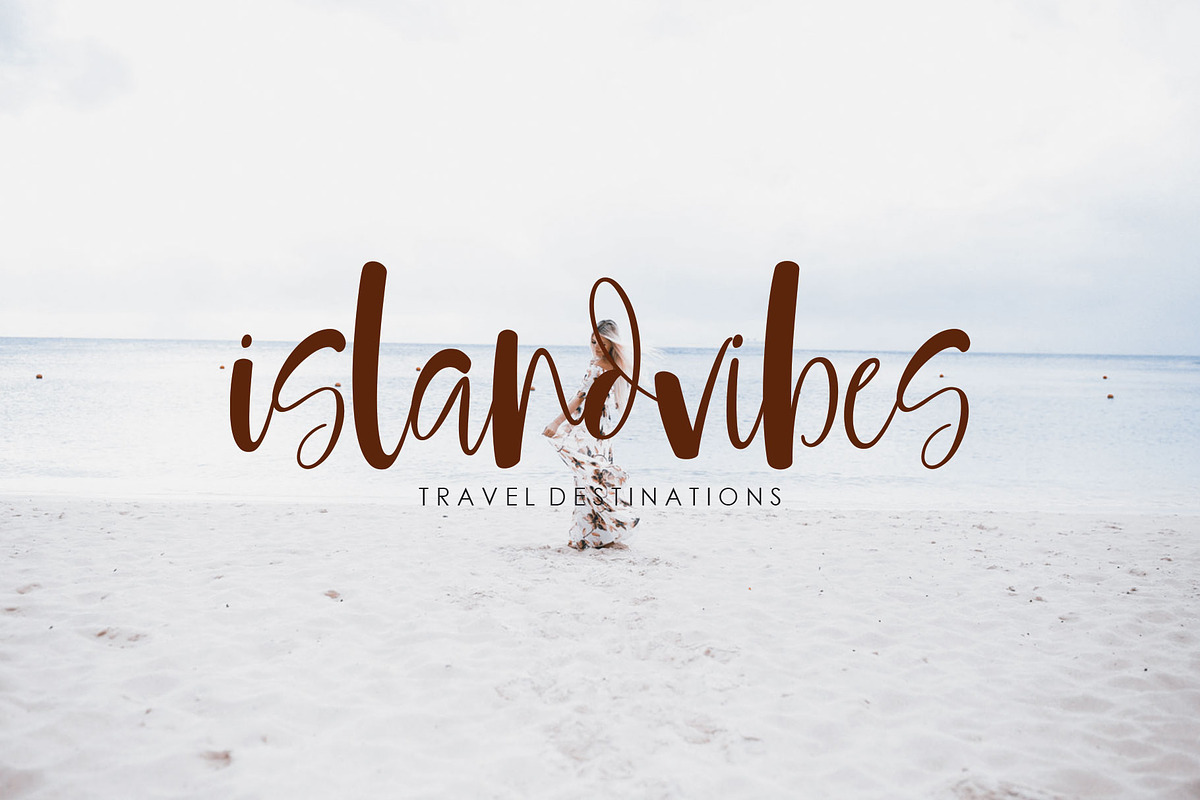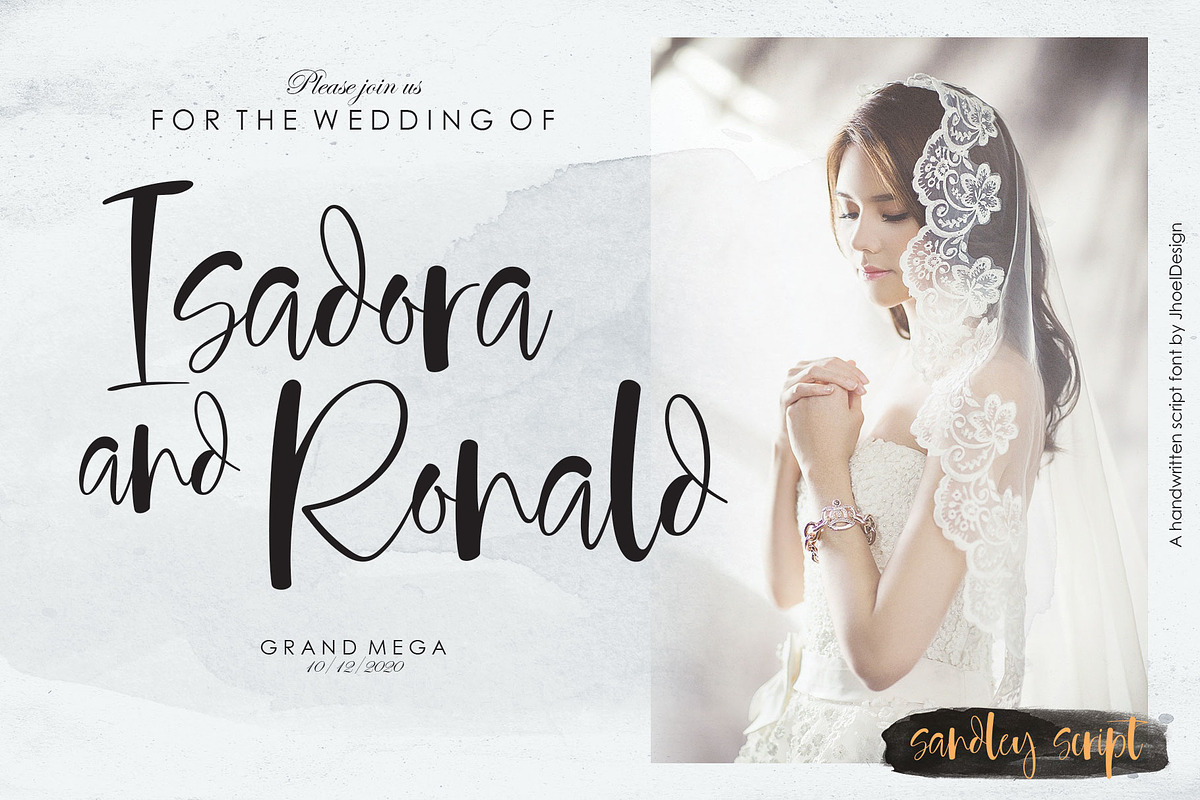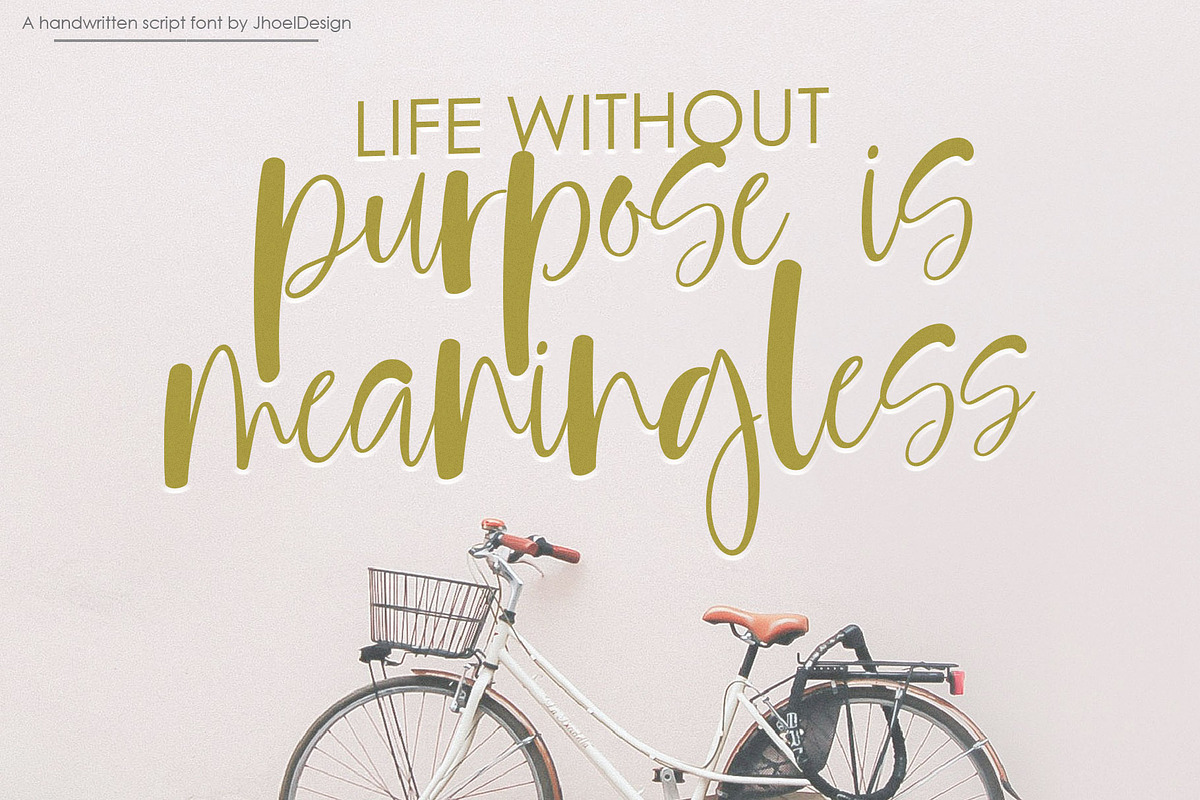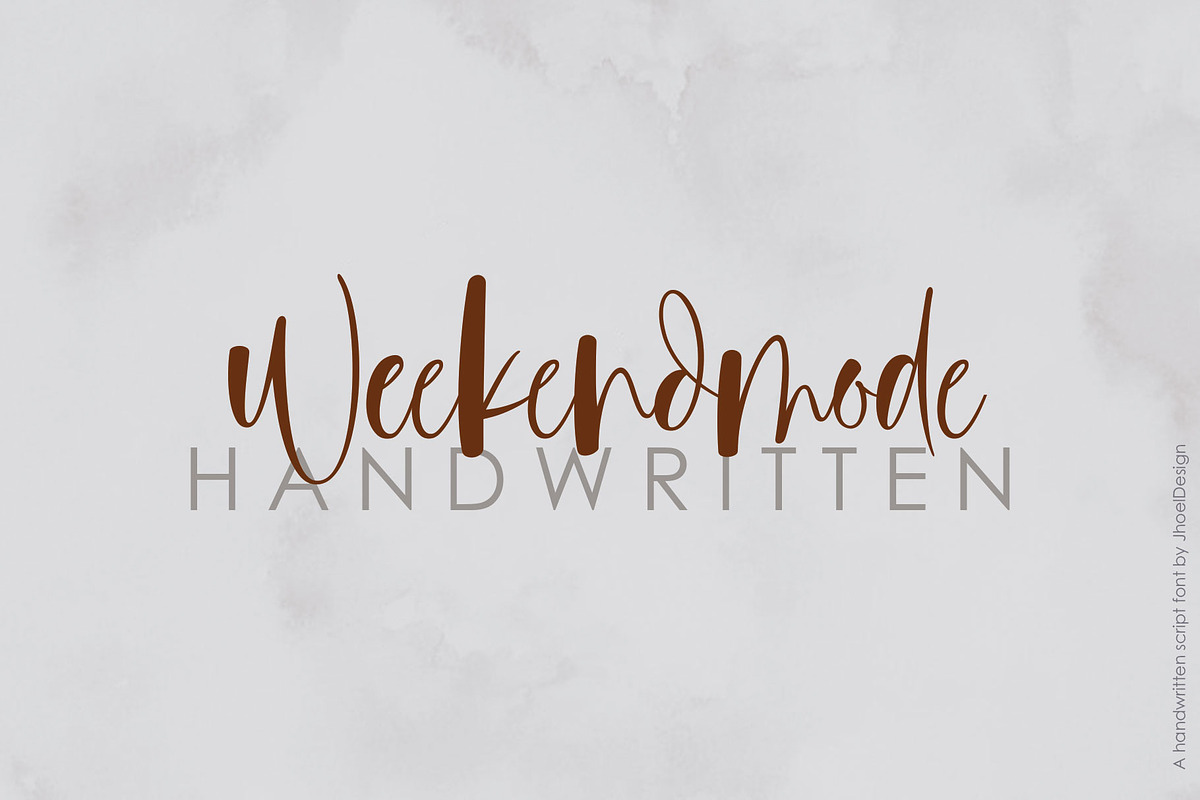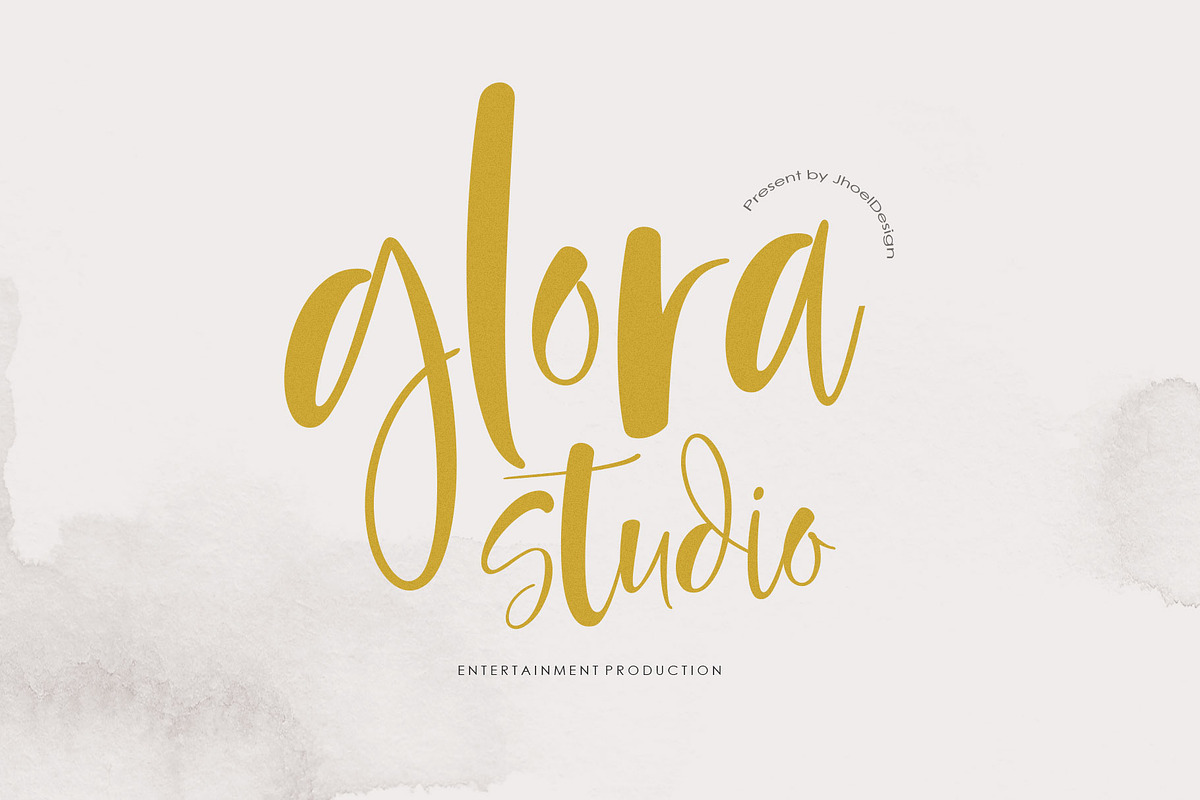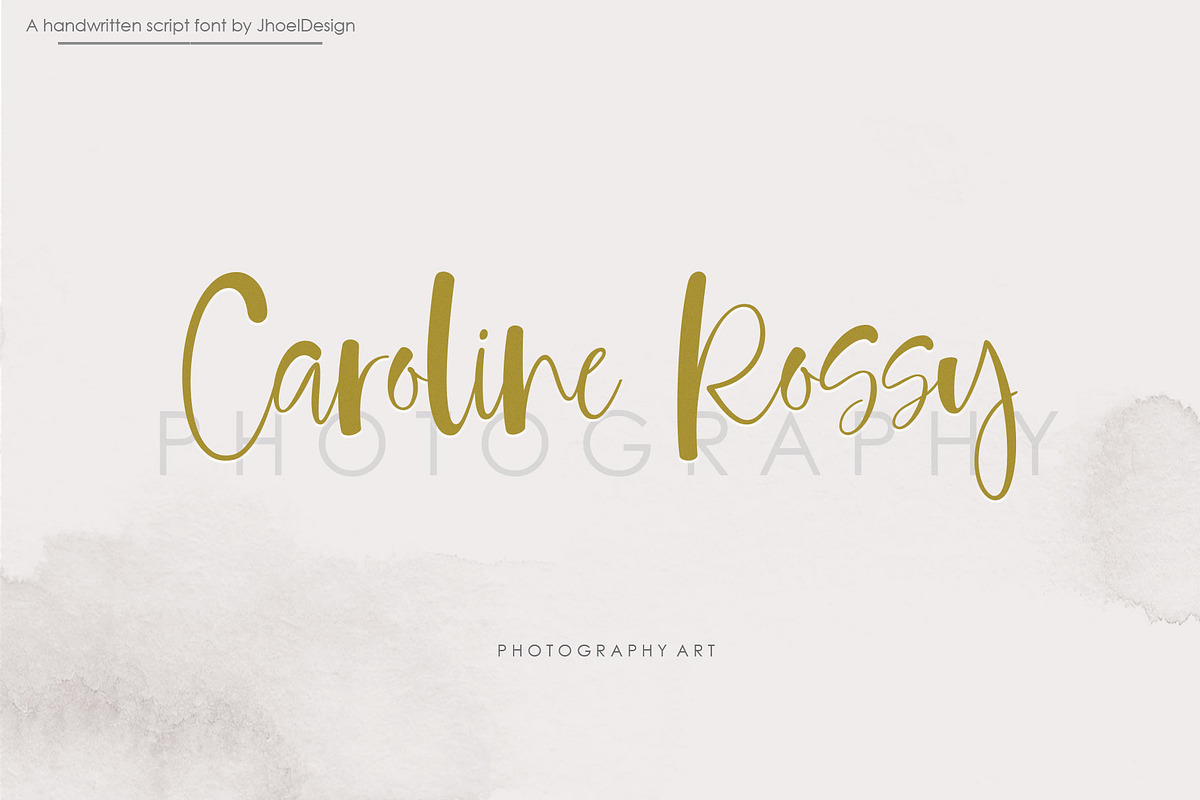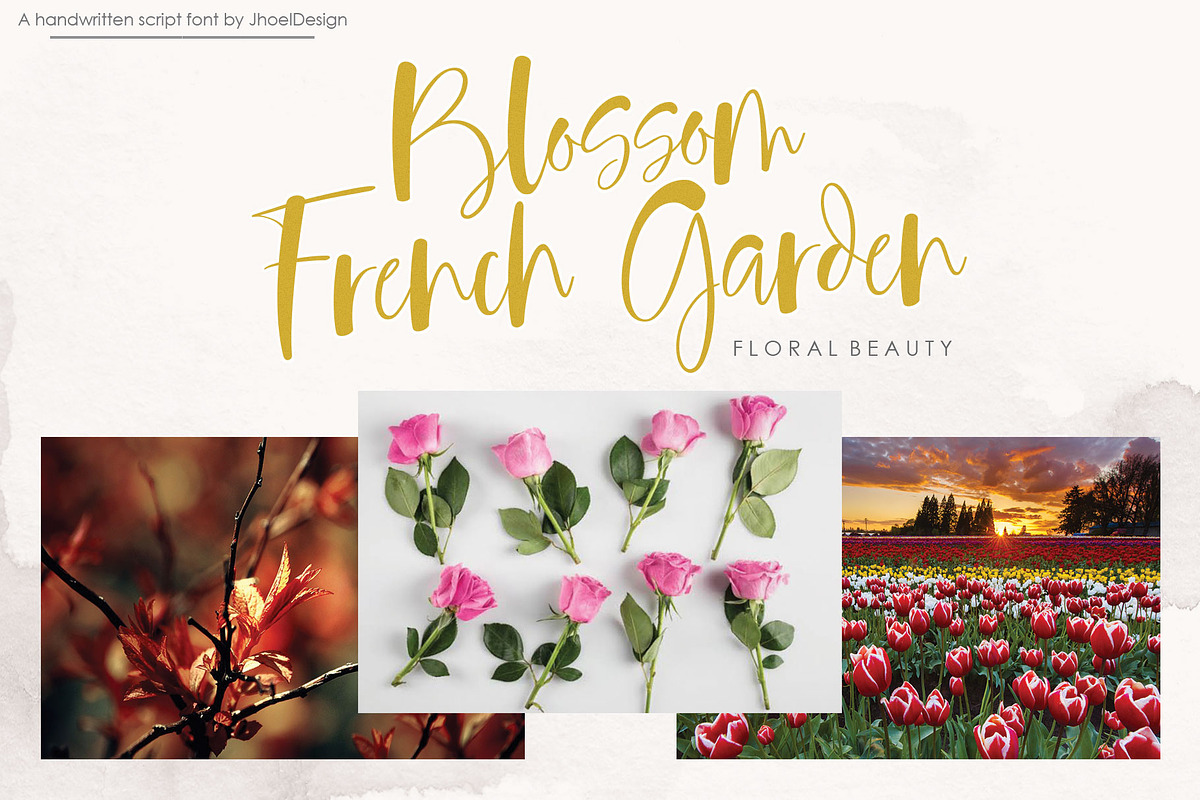
Sandley | Handwritten Script Font
Hi! Meet again the new Sandley font from us.
Sandley includes the full set of upper and lower case letters, multilingual symbols, numbers, and punctuation, standard ligatures, stylistic alternates.